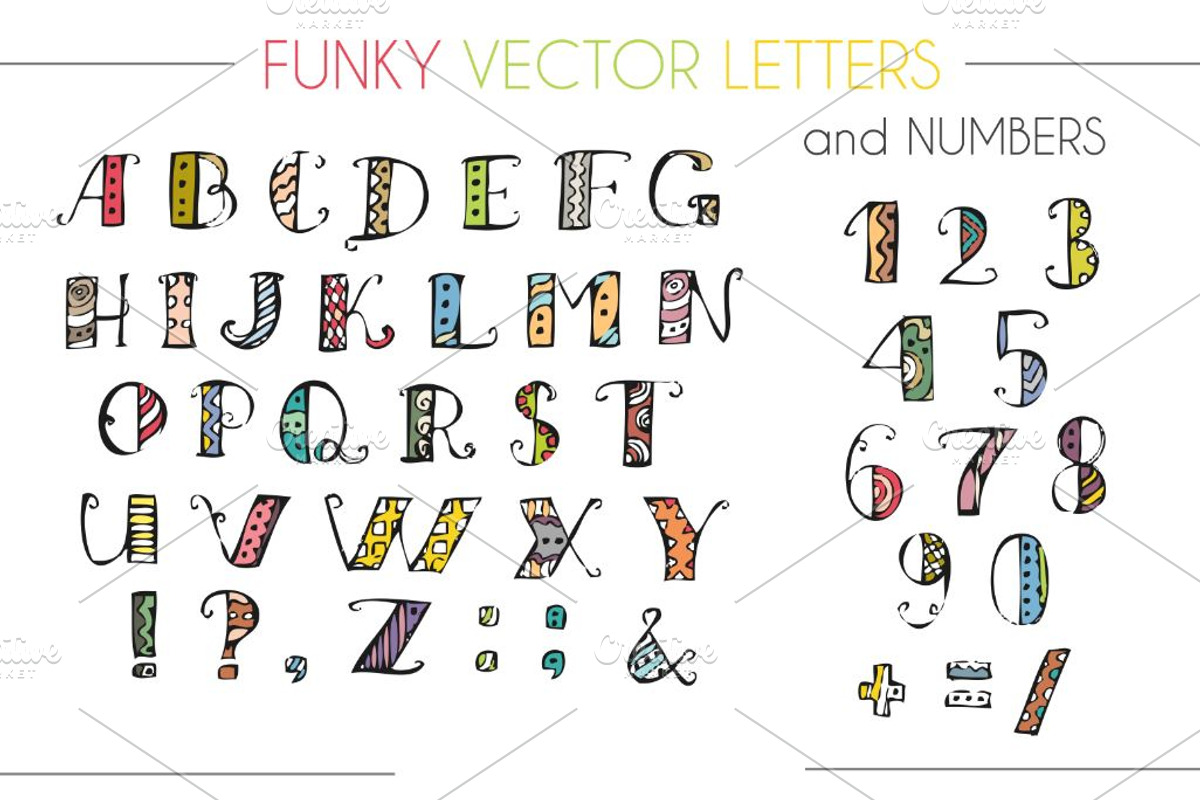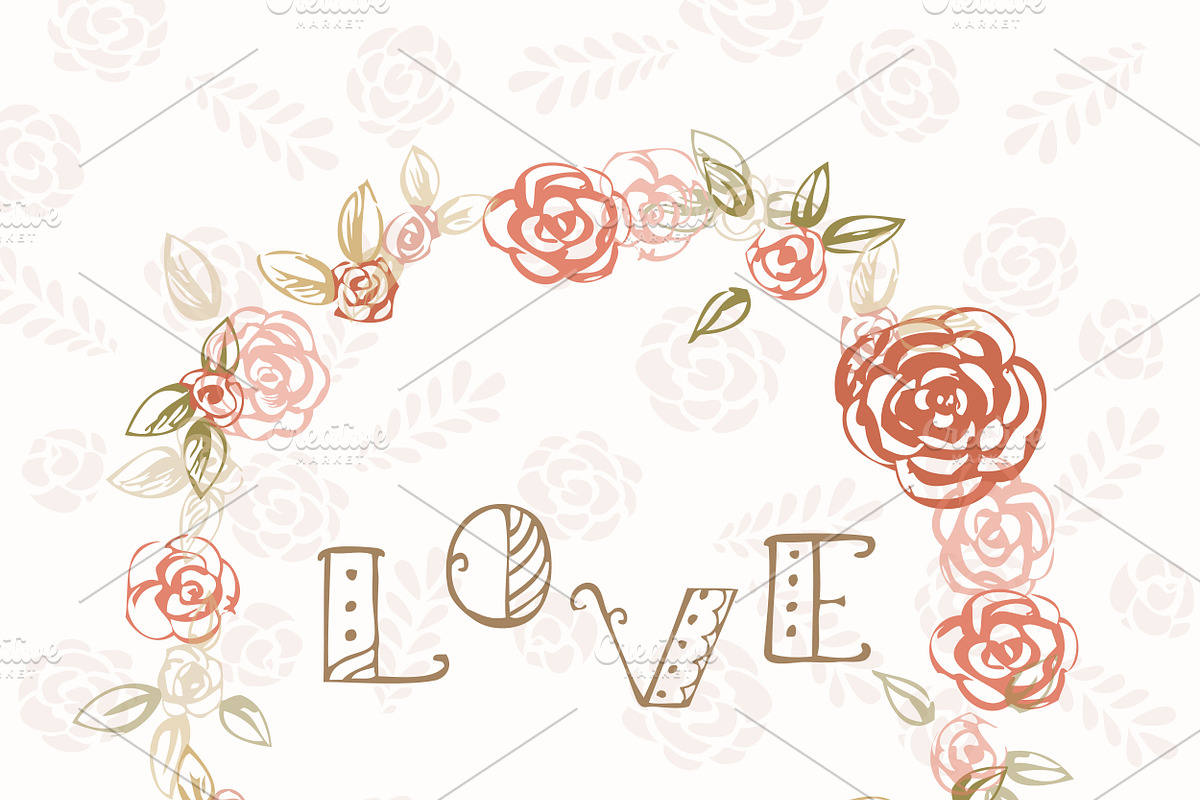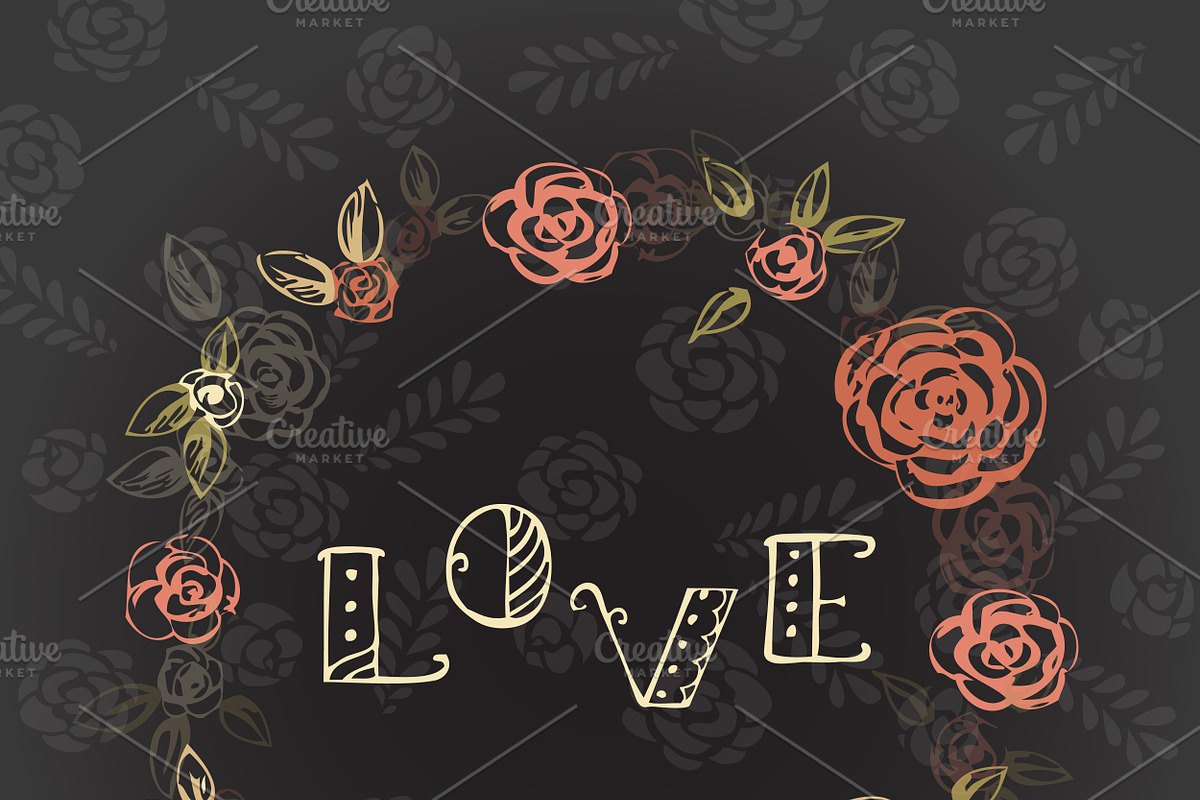
Funky Font
Hand drawn letters, numbers and symbols. Funky abc for your colorful design.
Why Funky Font is worth a look
Funky Font by MalinaShop fits naturally into Branding, posters, packaging, typography.